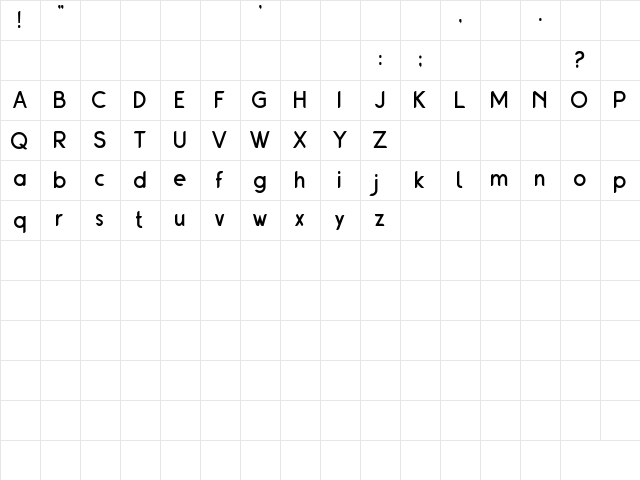
Jobless Regular
| Foundry | Nurf Designs |
| Designer | Nurf Designs |
Design Context for Jobless Typeface
Jobless is a composed and adaptable typeface that performs quietly and consistently across a wide range of design contexts.